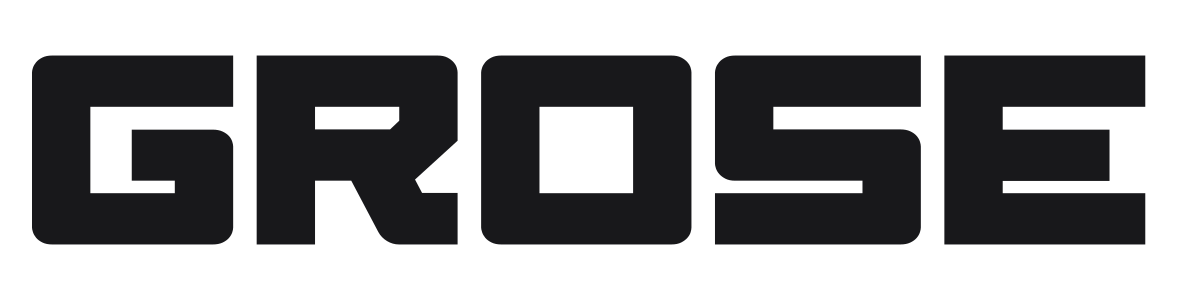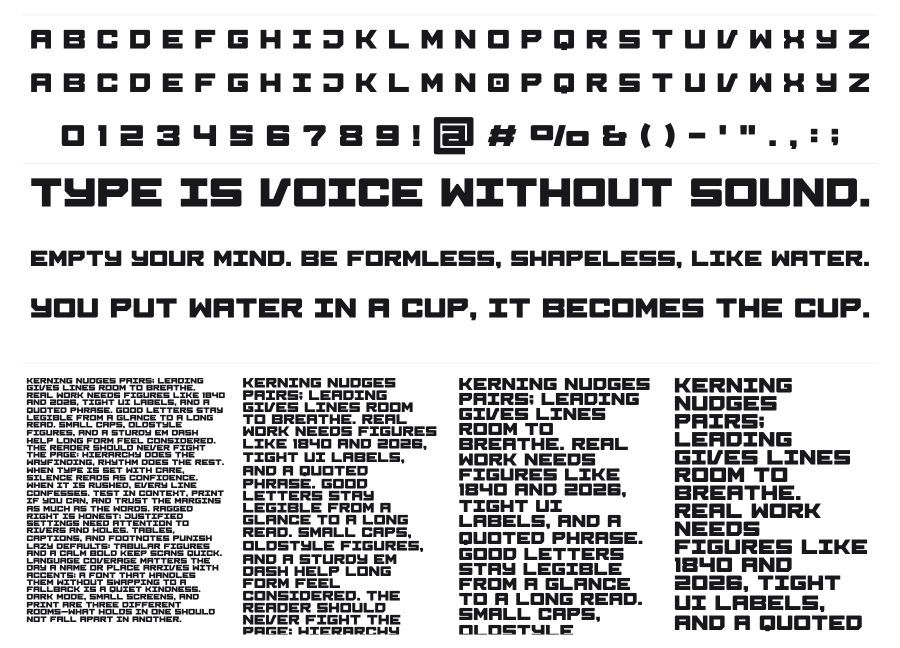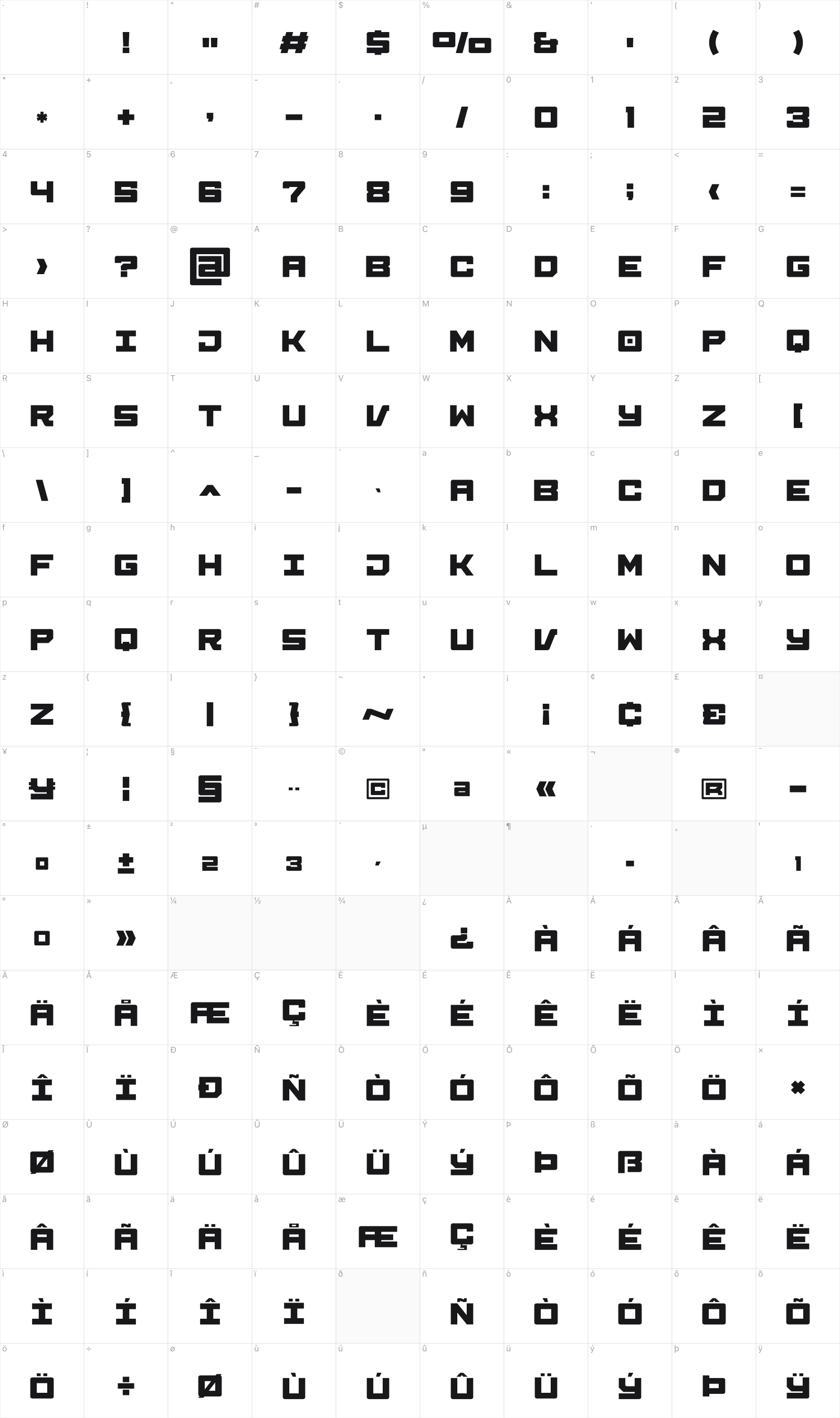
Grose
Grose is a heavy squared techno sans with thick monoweight strokes and sharp notched corners that give it a mechanical, almost stencil-like presence. The wide, blocky proportions read with authority at large sizes, making it effective for gaming titles, sports branding, and industrial-themed design. It trades subtlety for impact.